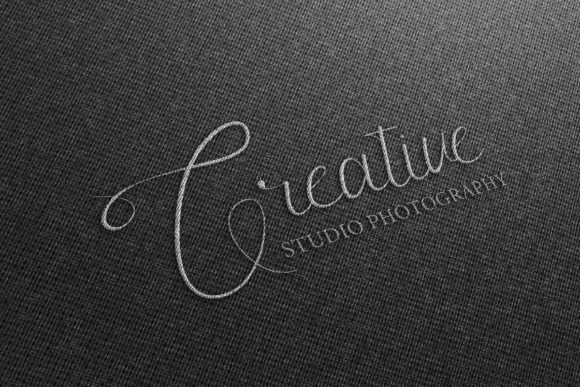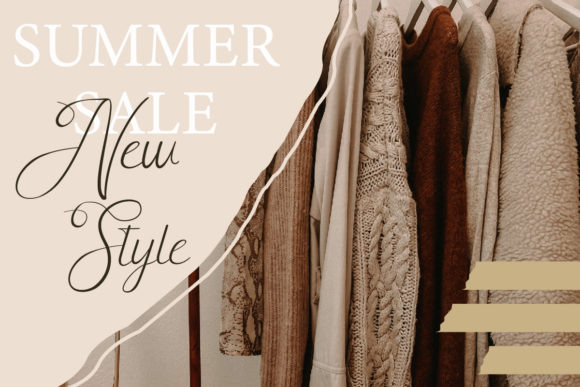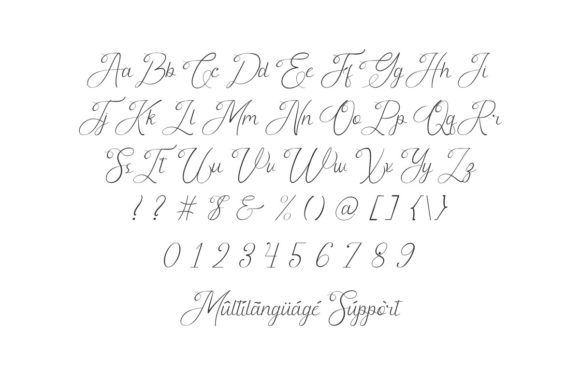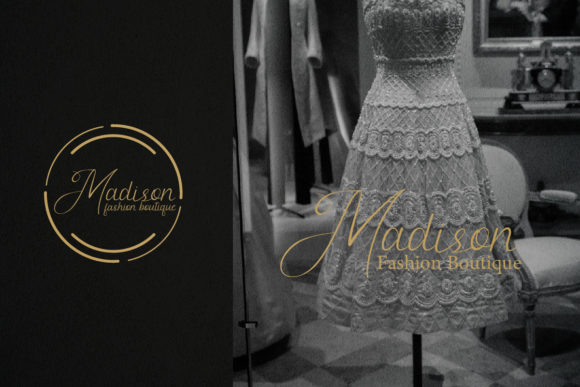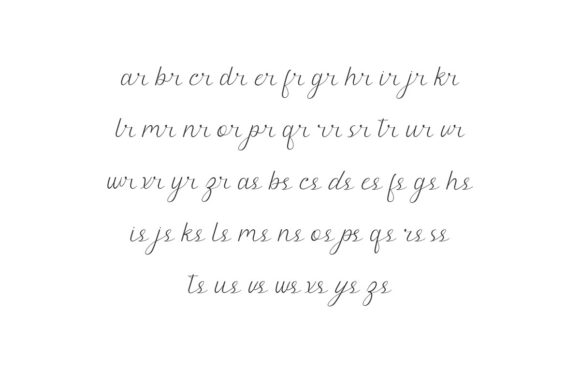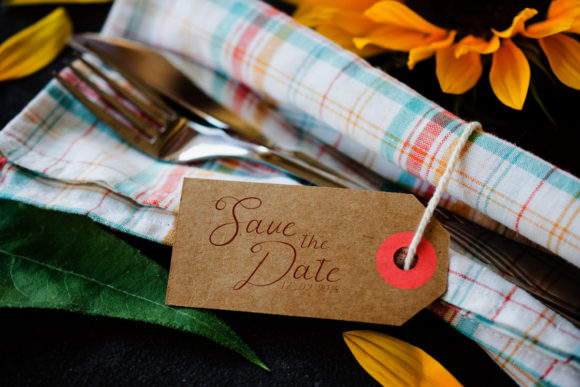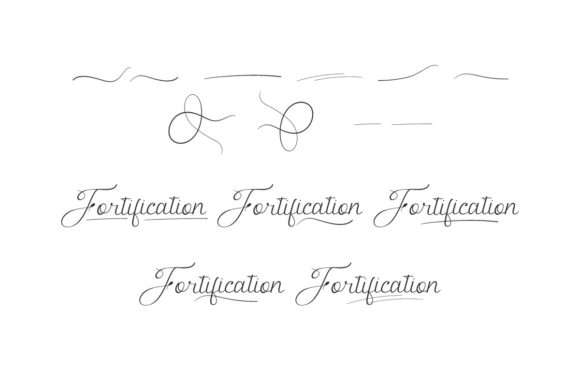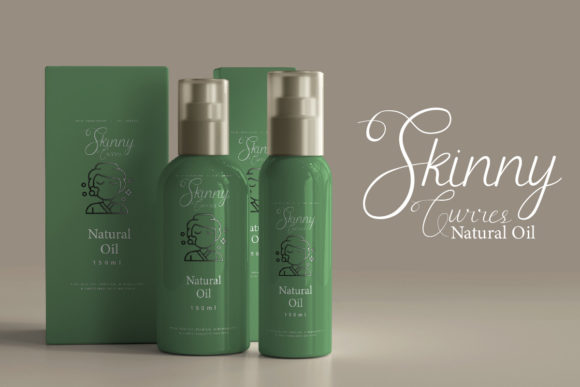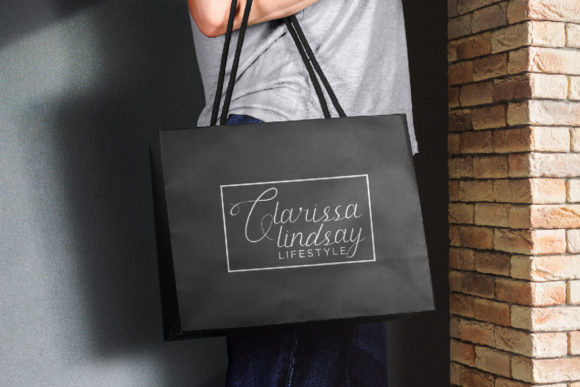
Fortification Font
Introducing “Fortification,” a well-balanced and vintage script font that adds a touch of nostalgia and elegance to your design projects. With its vintage charm and balanced strokes, Fortification is perfect for a wide range of applications, including product packaging, branding projects, magazine covers, social media graphics, weddings, and more.
This font’s timeless appeal makes it suitable for both modern and retro-inspired designs. Whether you’re creating a vintage-inspired brand identity or adding a touch of sophistication to your social media posts, Fortification brings a sense of authenticity and charm to your projects.
With PUA encoding, accessing the wide array of glyphs and swashes is effortless, allowing you to customize your designs with ease. Whether you’re adding decorative elements or unique letter combinations, Fortification offers endless possibilities for creative expression.
Experience the beauty and versatility of Fortification and watch as it transforms your designs into captivating works of art. Whether you’re a professional designer or a creative enthusiast, this font invites you to explore new avenues of creativity and express yourself with confidence and style.
Unlock the full potential of your designs with Fortification and let its vintage script font elevate your projects to new heights. With its well-balanced strokes and nostalgic charm, this font is sure to become a beloved addition to your design toolkit, inspiring creativity and elegance with every use.